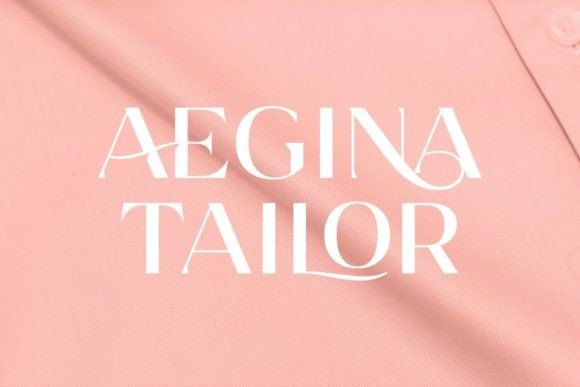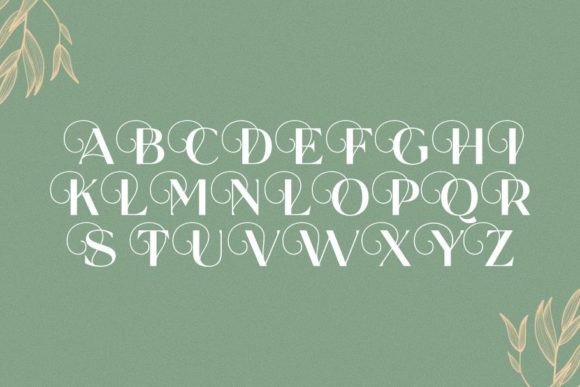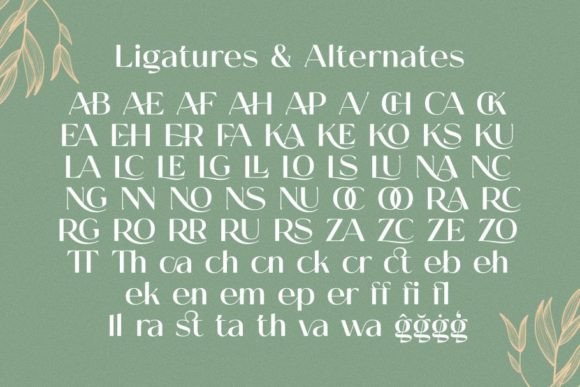
Girisuba: A Beautiful Modern Hybrid Font
Girisuba is a beautiful modern sans-serif font with a subtle serif influence. Moreover, its high contrast design serves as its main feature, while its smooth and geometric characteristics create a stylish, modern, and neutral appearance that blends well with any project.
Key Features of Girisuba
- High Contrast: Offers striking variation between thick and thin strokes.
- Hybrid Design: Combines sans-serif modernism with subtle serif elements.
- Geometric Style: Features clean, mathematical forms and smooth lines.
- Neutral Appeal: Adapts seamlessly to various design contexts.
Best Uses for Girisuba
Thanks to its versatile characteristics, Girisuba works especially well for:
- Sophisticated packaging designs
- Eye-catching headlines
- Striking posters
- Distinctive logotypes
- Modern branding projects
- Creative typography
- Contemporary design work
When using Girisuba in your designs, keep these tips in mind:
- Try it for headlines or short text to showcase its high contrast features.
- Use different sizes to highlight its geometric characteristics.
- Let its neutral style adapt to various design contexts.
- Take advantage of its modern appeal for contemporary projects.
To sum up, Girisuba is an excellent choice for designers seeking a beautiful modern font that bridges the gap between sans and serif styles. Its high contrast design and geometric characteristics make it perfect for various typographic purposes. Whether you’re working on packaging designs, creating headlines, or developing logotypes, Girisuba offers the perfect blend of style and versatility.
Furthermore, Girisuba’s unique design allows it to shine in contexts where both modernity and sophistication are key. For instance, from packaging to posters, this font can elevate your projects with its distinctive style. Also, its neutral yet stylish appearance works particularly well in designs that aim to make a contemporary impact.
In conclusion, Girisuba truly captures the essence of modern typography by combining sans-serif simplicity with subtle serif influences. Its versatility across different applications shows how well it can serve various creative needs. Therefore, for those wanting to add a touch of sophisticated modernity to their work, Girisuba can enhance any design with its unique style. Ultimately, it’s perfect for designers aiming to make a stylish, contemporary impact across a wide range of creative projects.